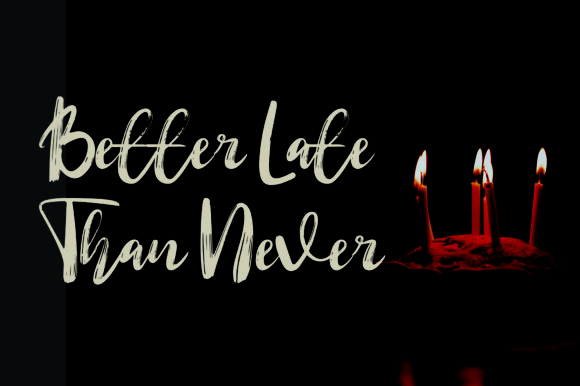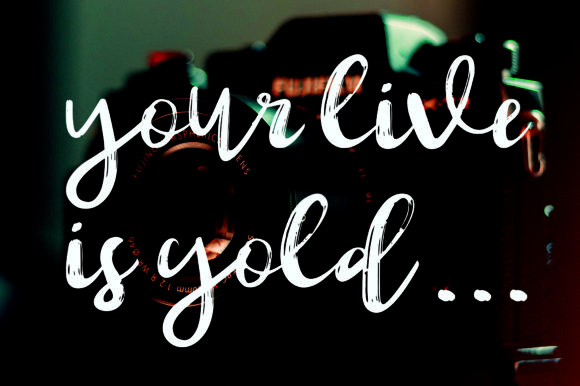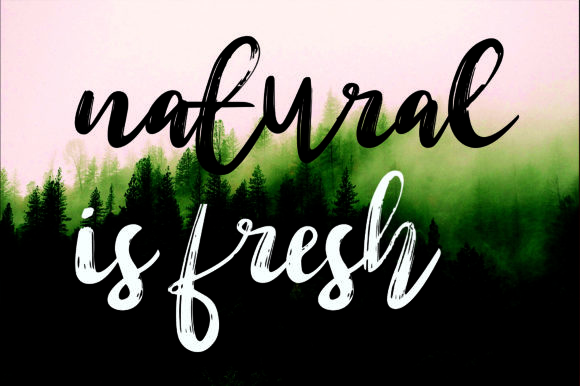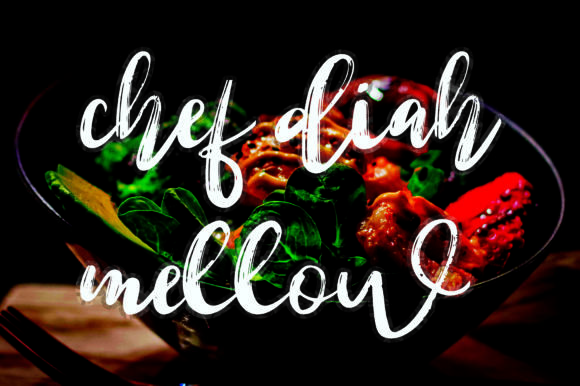
The Sweet Taste of Design: Discovering Chef Diah Mellow Font
Have you ever found yourself lost in the world of font pairings, searching for the perfect combination to elevate your design? Maybe you’ve spent hours browsing through font libraries, only to stumble upon a hidden gem that leaves you speechless. That’s exactly what happened to me when I discovered the enchanting Chef Diah Mellow Font. This delicate, sweet, and romantic brushed handwritten font is a game-changer for any designer looking to add a touch of personality to their work.
With its versatility and charm, Chef Diah Mellow Font is perfect for creating unique designs that leave a lasting impression. From wedding invitations to thank you cards, and from logos to greeting cards, this font is sure to make your designs stand out from the crowd.
Chef Diah Mellow Font Key Features
- Unique Characteristics: Chef Diah Mellow Font features a unique, hand-drawn design with a mellow and playful feel, making it perfect for creative projects and food-related branding.
Review of “Chef Diah Mellow Font”
At first glance, I was drawn to the whimsical and playful vibe of “Chef Diah Mellow Font”. The font’s rounded edges and subtle curves evoke a sense of warmth and friendliness, making it perfect for casual food blogs or social media platforms.
- ✨ Unique and playful character set that adds a touch of personality to text.
- ✨ Great for headings and titles, where the font’s whimsy can shine.
- ✨ Works well in digital formats, such as social media and websites.
However, I did encounter some limitations when using the font in longer blocks of text.
- ⚠️ Can be difficult to read in smaller sizes or at a distance.
- ⚠️ May not be suitable for formal or professional applications.
- ⚠️ Can be overwhelming if used too extensively, as the playful nature of the font may become distracting.
Overall, I think “Chef Diah Mellow Font” is a great choice for projects that require a lighthearted and approachable tone. While it may not be suitable for every application, its unique character set and playful vibe make it a great addition to any designer’s toolkit.
Tips for Getting the Most Out of Chef Diah Mellow Font
Use Chef Diah Mellow Font for creative and modern designs.
Combine it with bold colors and graphics to create a striking visual effect.
Experiment with different font sizes and styles to create a unique look.
Use Chef Diah Mellow Font for:
Restaurant and cafe menus
Food and beverage branding
Recipe books and cookbooks
Alternatives to Chef Diah Mellow Font
Great Vibes Font is a high-end, elegant script font that is perfect for luxury brands and high-end products. It has a similar feel to Chef Diah Mellow Font but with a more refined and sophisticated touch. Great Vibes Font is ideal for designers looking to create a premium and high-end brand image.
Carolyna Pro is a modern, elegant script font that is designed for high-end branding and packaging. It has a similar feel to Chef Diah Mellow Font but with a more modern and sleek touch. Carolyna Pro is ideal for designers looking to create a sophisticated and modern brand image.